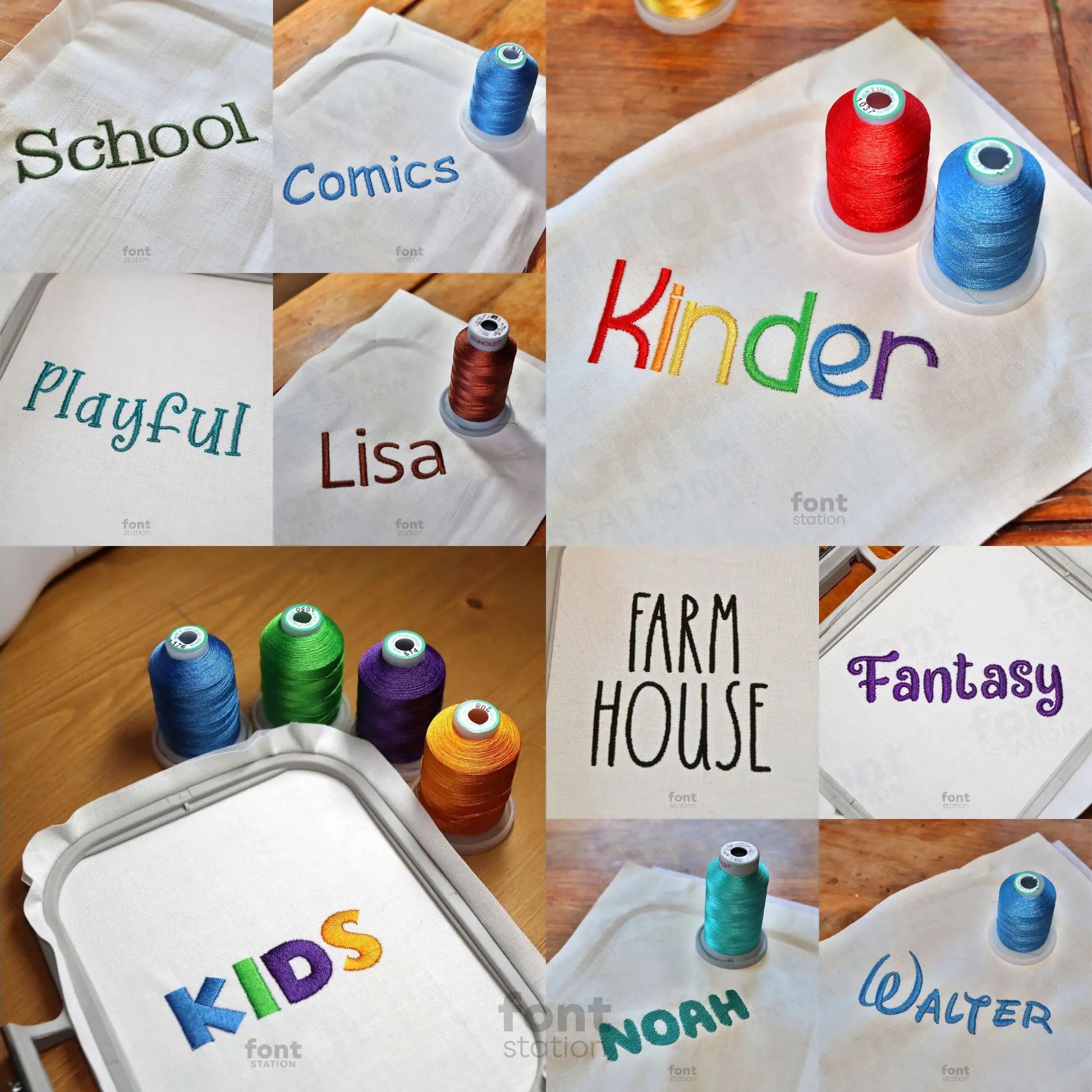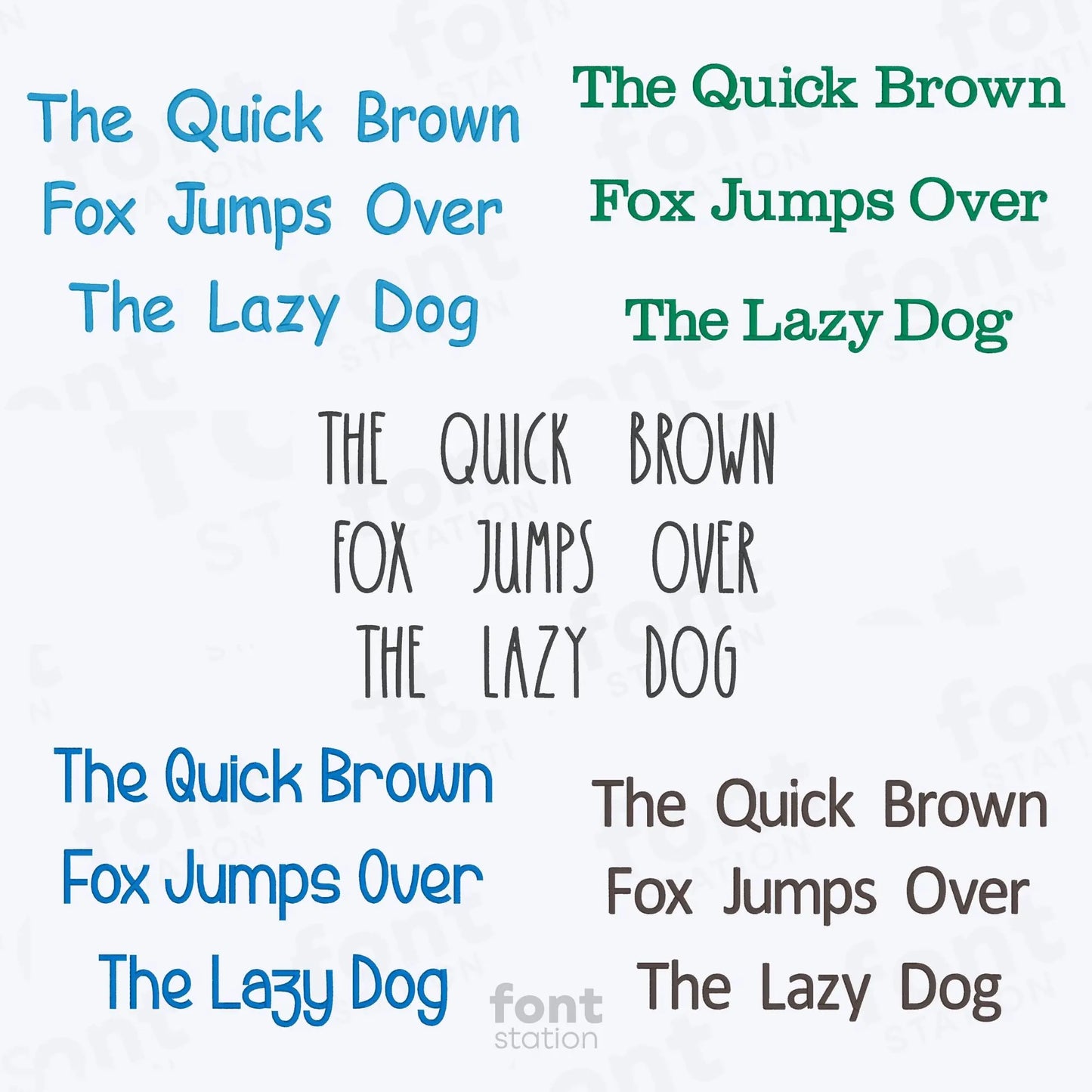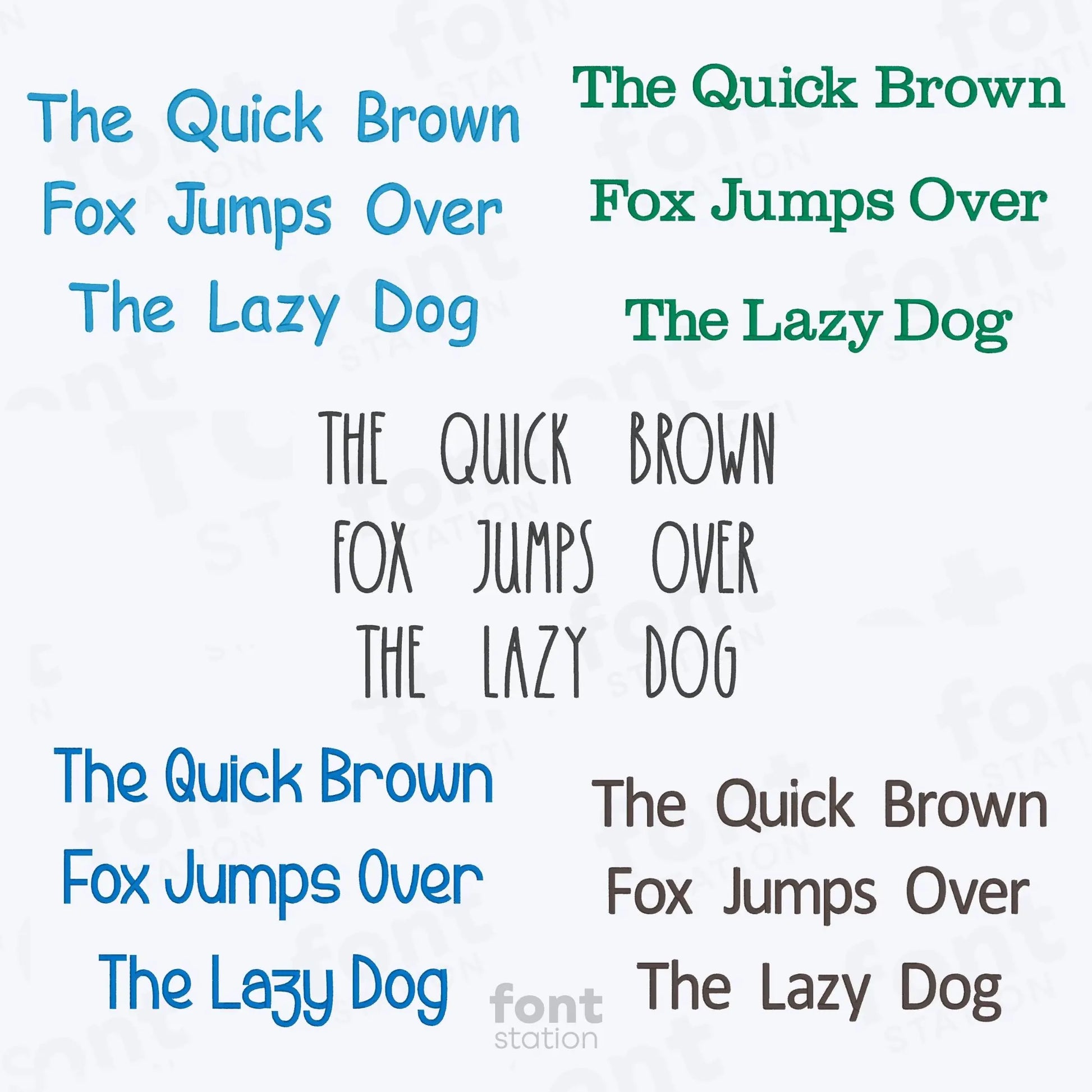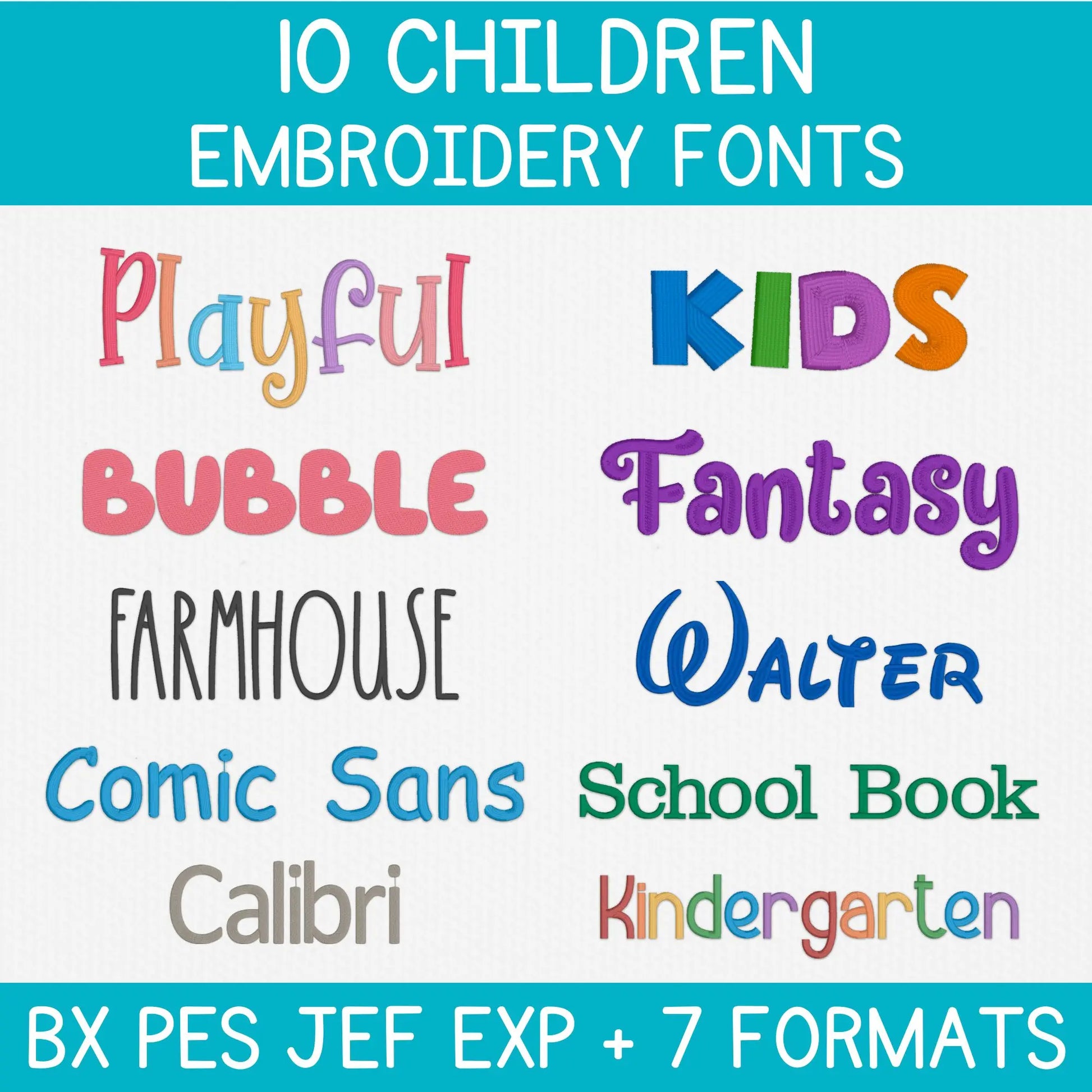
Children Embroidery Fonts Bundle
Introducing our Children Embroidery Fonts Bundle, a playful alphabet collection designed for kids' projects. These letters stitch cleanly on any embroidery machine, perfect for fun designs that brighten every project.
Children Embroidery Fonts Bundle - playful machine embroidery alphabets for kids
Brighten up your next embroidery project with our Children Embroidery Fonts Bundle, a delightful collection of 10 playful embroidery fonts designed especially for kids. Each font in this bundle features a unique machine embroidery alphabet, perfect for children's names, classroom decor, baby gifts, and fun custom designs. Whether you're stitching with satin or fill stitch styles, these professionally digitized embroidery letters ensure clean, smooth results on any embroidery machine.